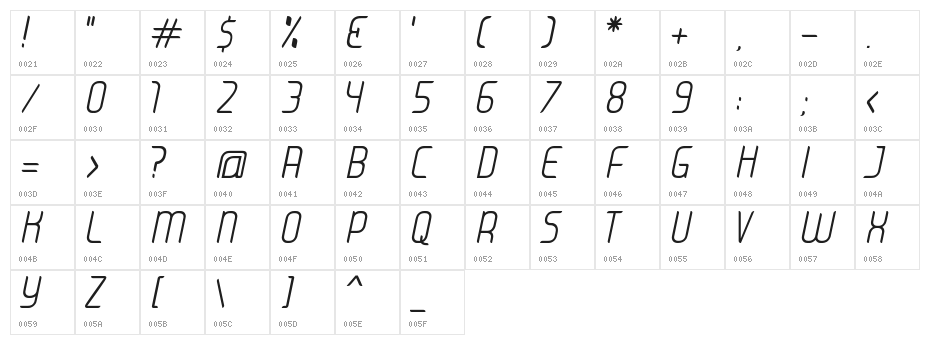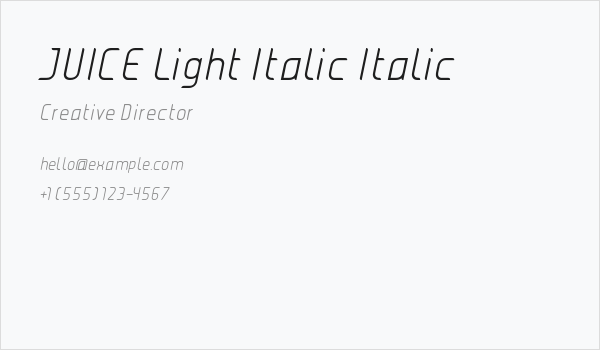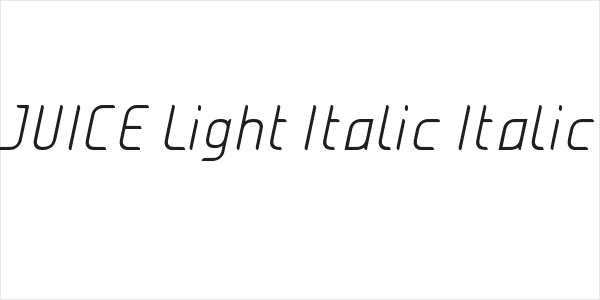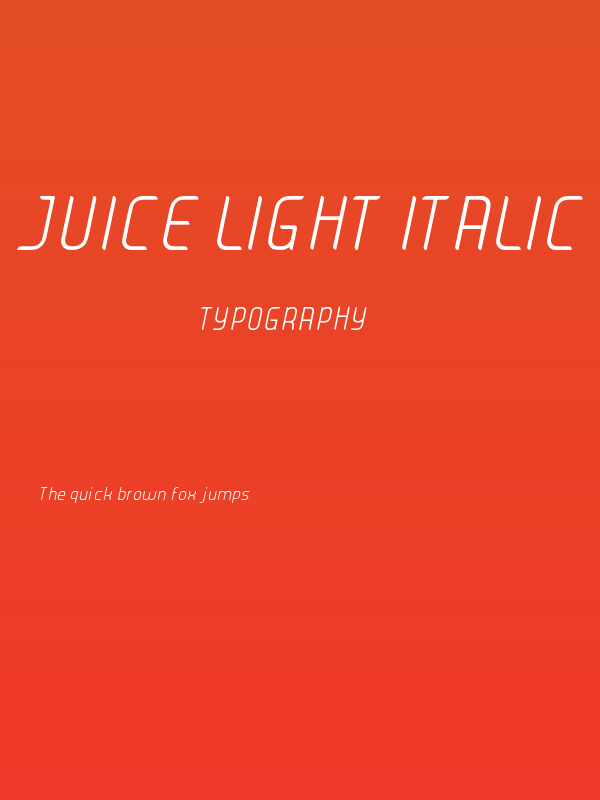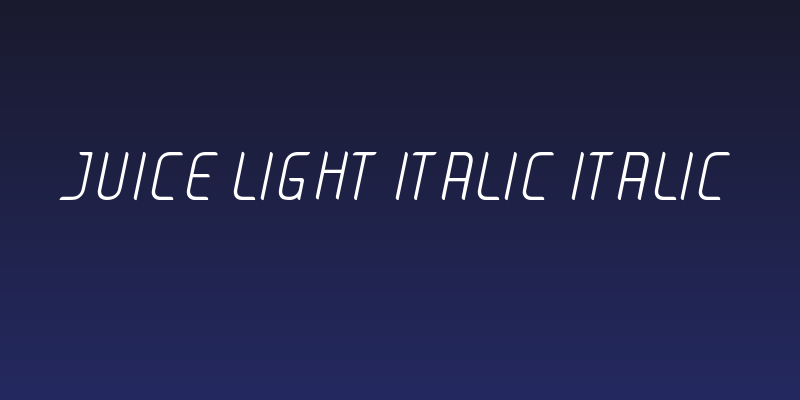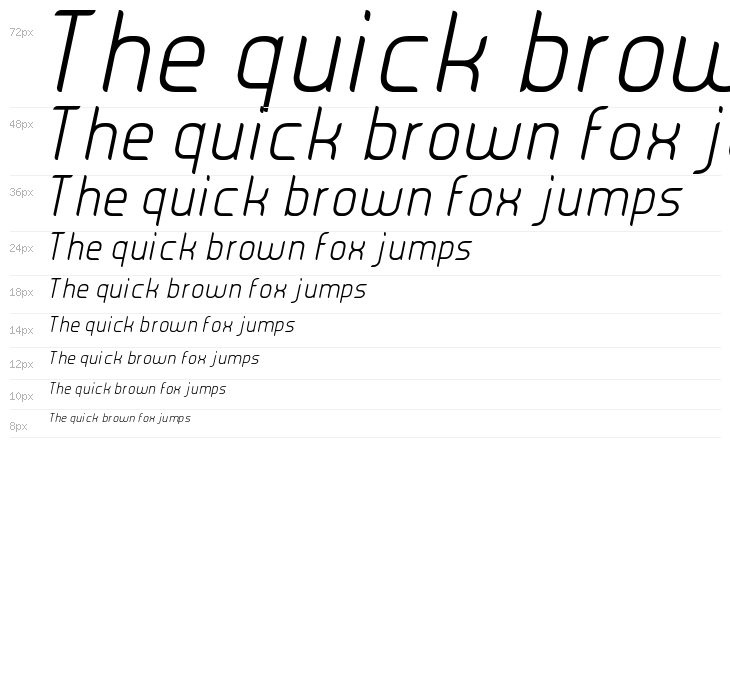
JUICE Light Italic Italic Font
JUICE Light Italic Italic Description
This font features a sleek, modern design with a light and airy feel. The characters are slightly elongated with a consistent slant, giving it an italicized appearance. The strokes are thin and uniform, contributing to a clean and minimalist look. The overall style is contemporary, with a touch of elegance due to its smooth curves and open spacing. The font maintains readability while offering a stylish twist, making it suitable for a variety of design applications.
| Proposed Projects | Ideal for modern branding, editorial design, digital interfaces, and fashion-related projects. |